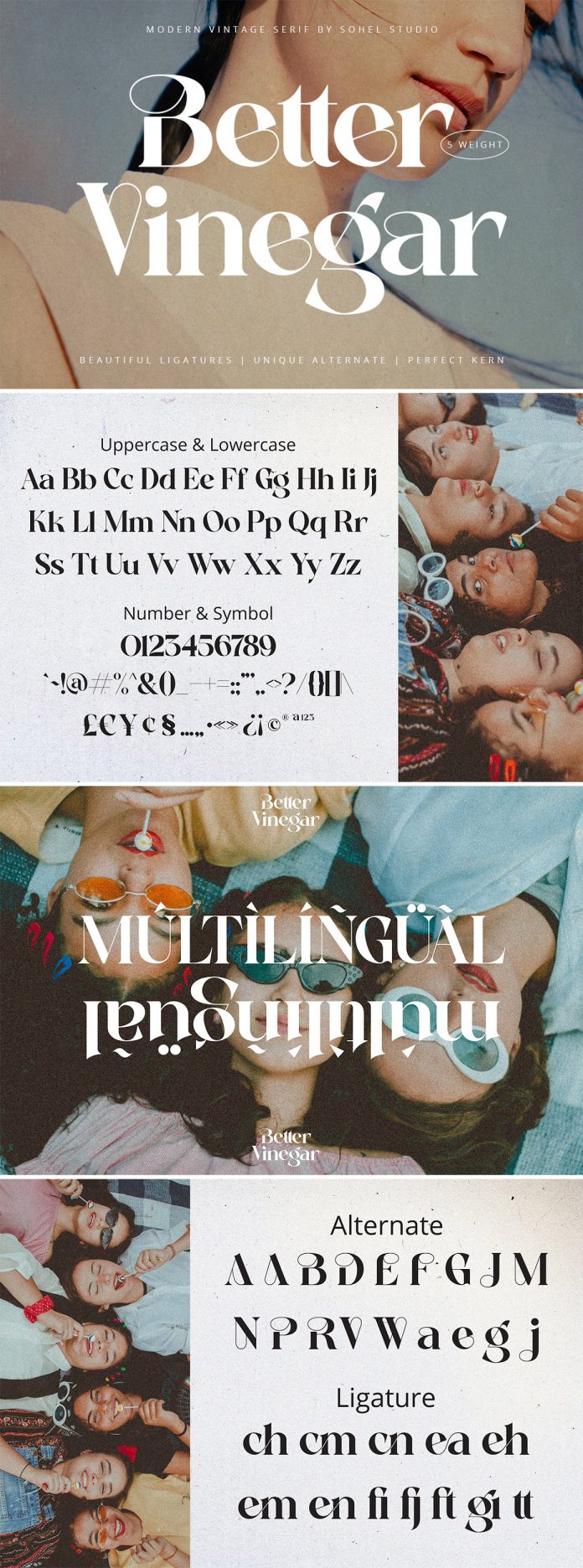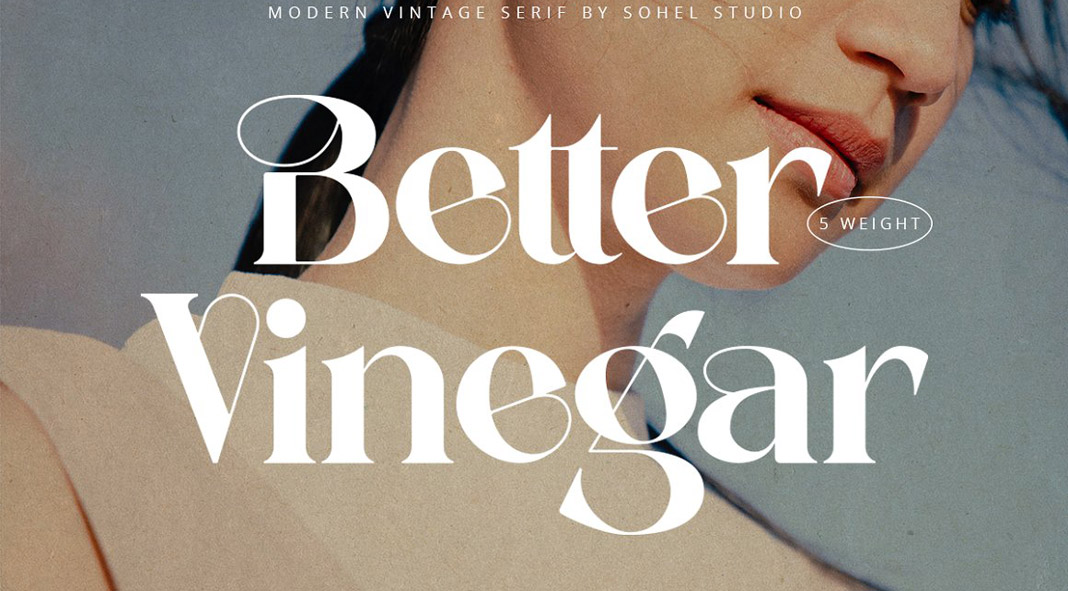
Say hello to Better Vinegar, a vintage-inspired font family with beautiful ligatures and unique alternative letters.
Designed and published by Sohel Studio, the Better Vinegar font family provides an elegant vintage-inspired look. Equipped with five weights, italics, and an outline version, the font is well-suited for display use. It comes with beautiful ligatures, unique alternates, and multilingual support. You can use this font for logo designs, classy headlines, fashion branding, ads, invitations, book/cover titles, and much more. Just click on the following link to get further information about the Better Vinegar font family.